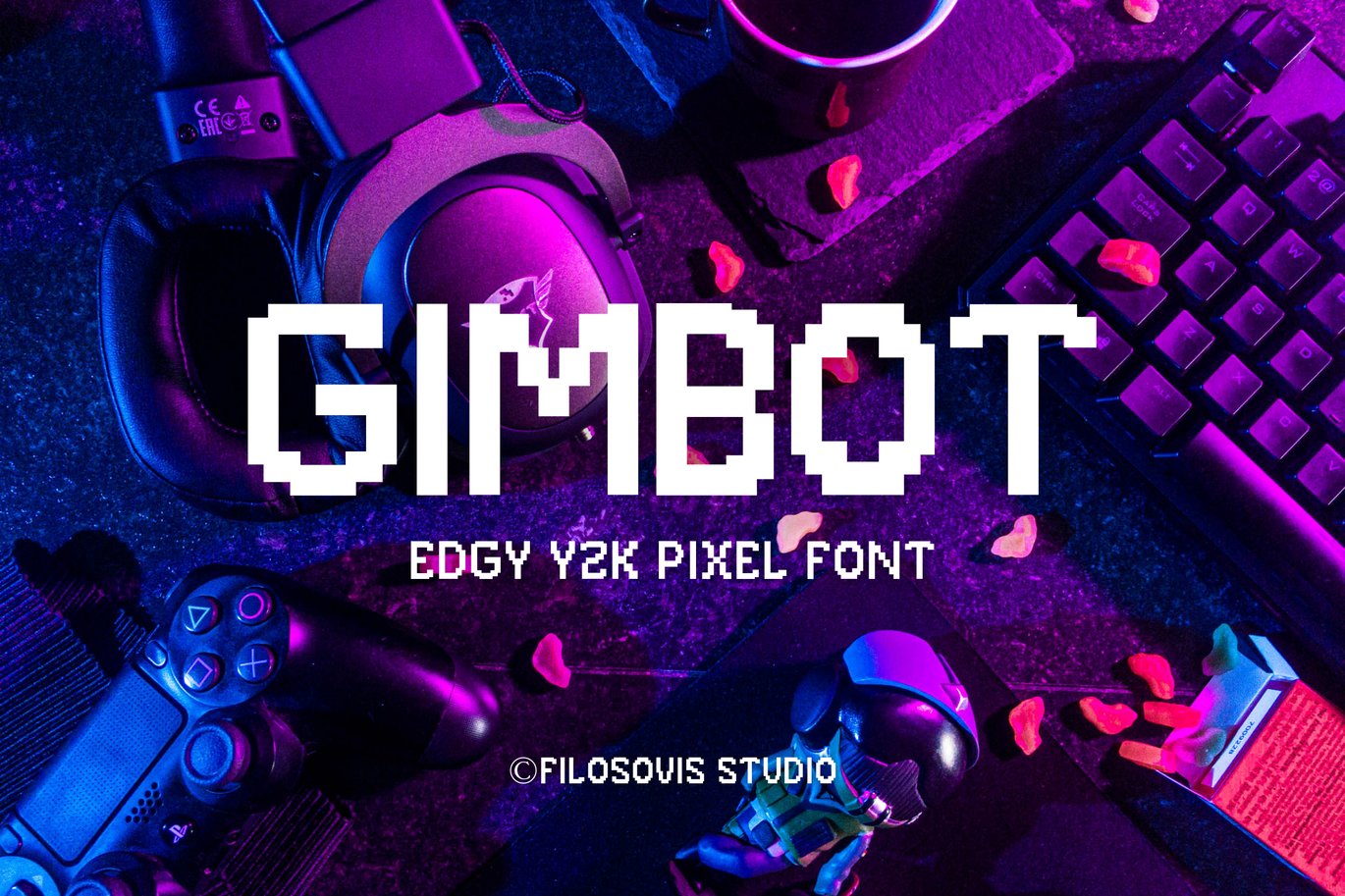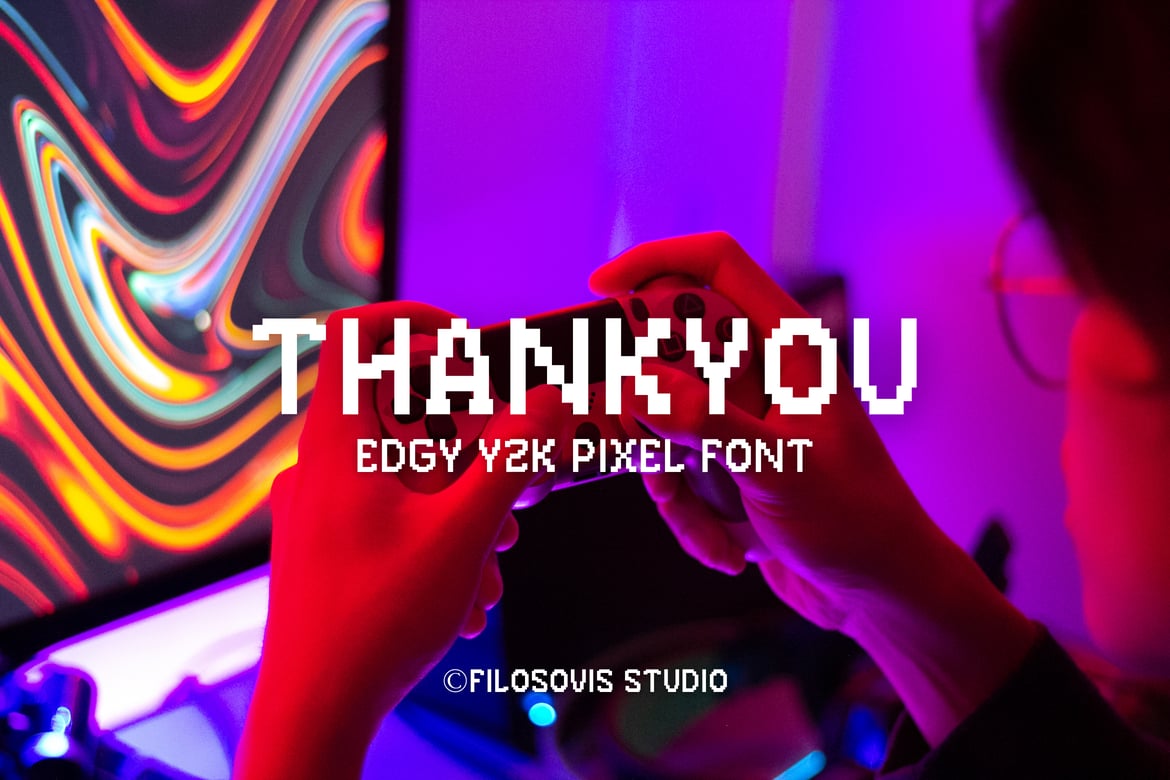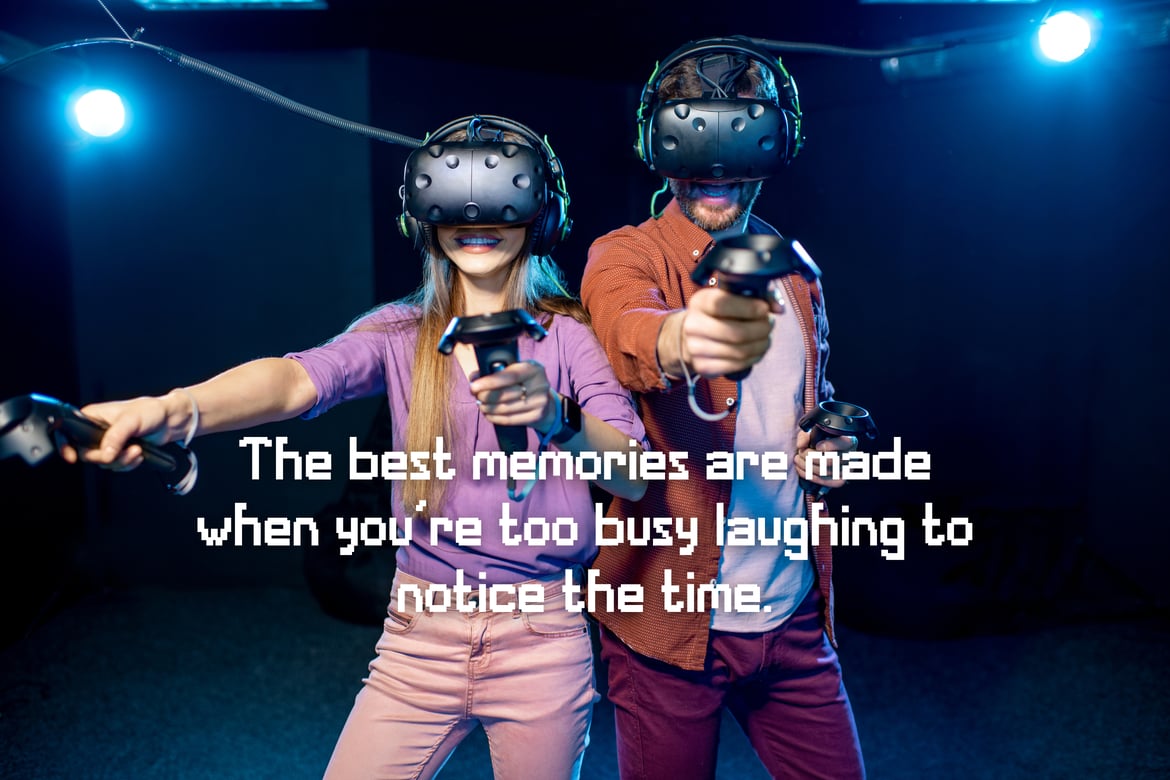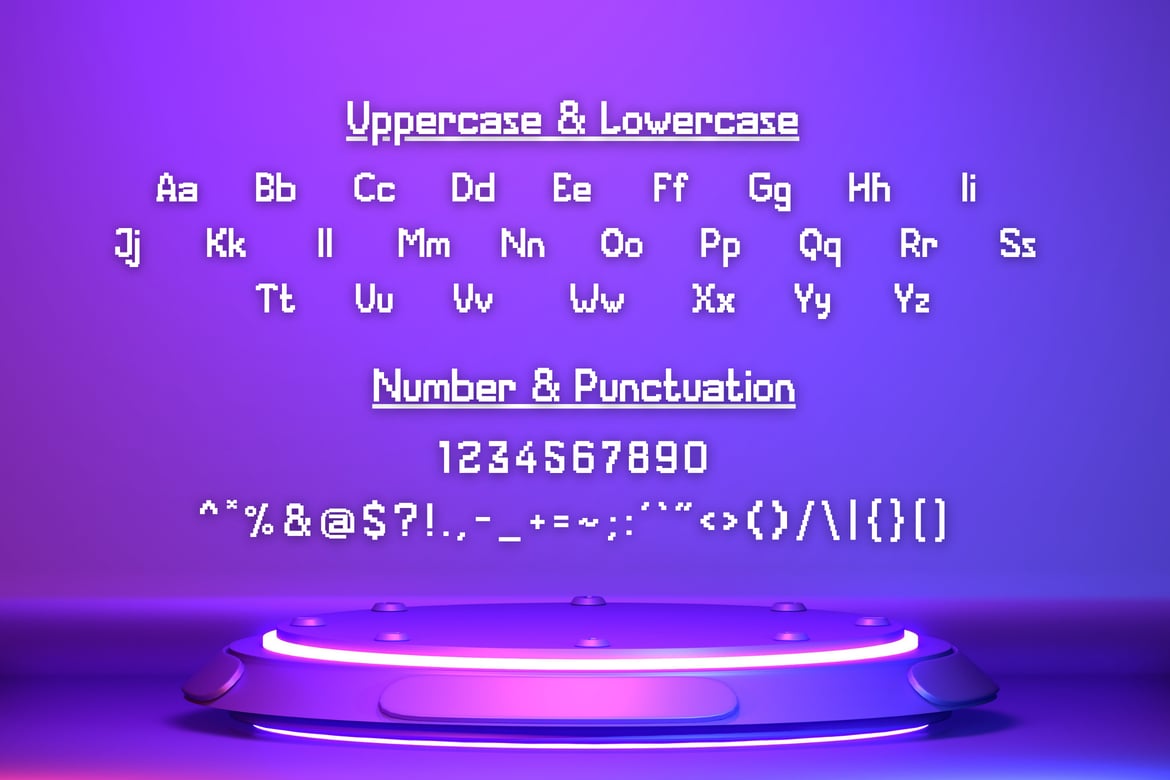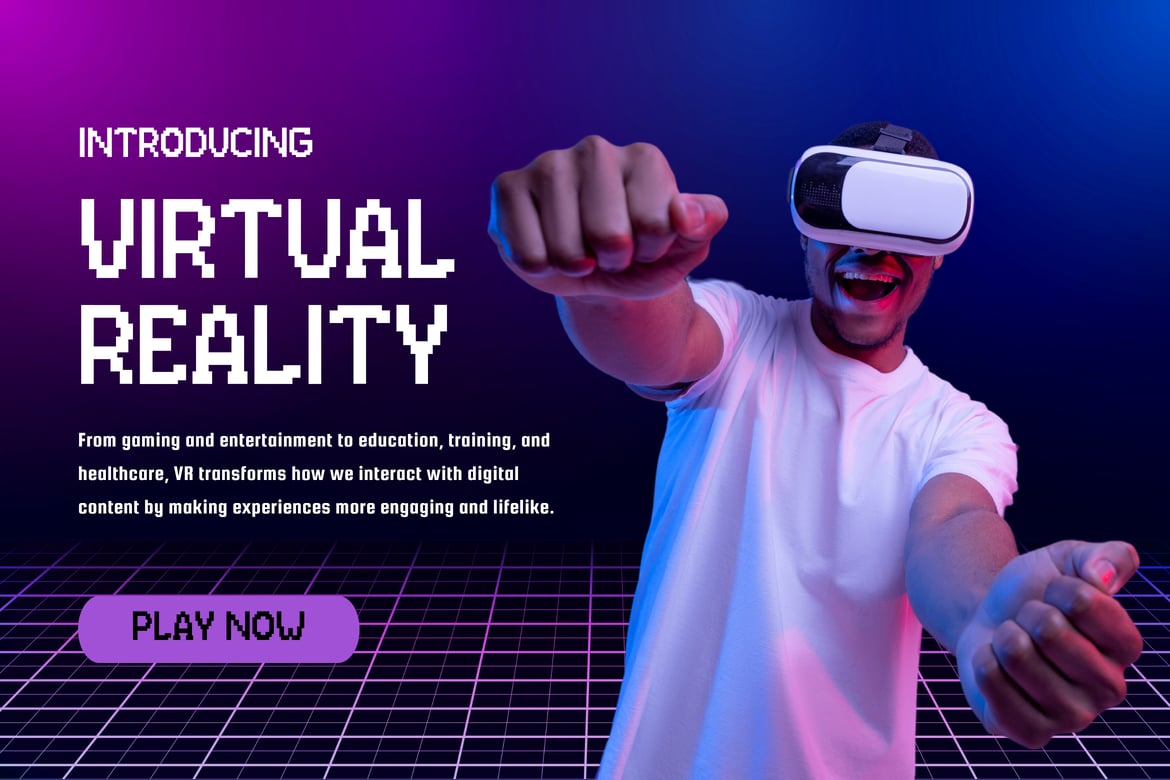
Gimbot | Pixel Font
For NFT, pixel-style, game, or poster design needs, Gimbot fonts are specially made to enhance your value. Adding your style and headline summary is ideal. Additionally, we have created old style, NFT, and unique vibes specifically for Micro font, so feel free to develop any project that will highlight your core idea.
- Uppercase Characters
- Lowercase Characters
- Numeric & Symbol